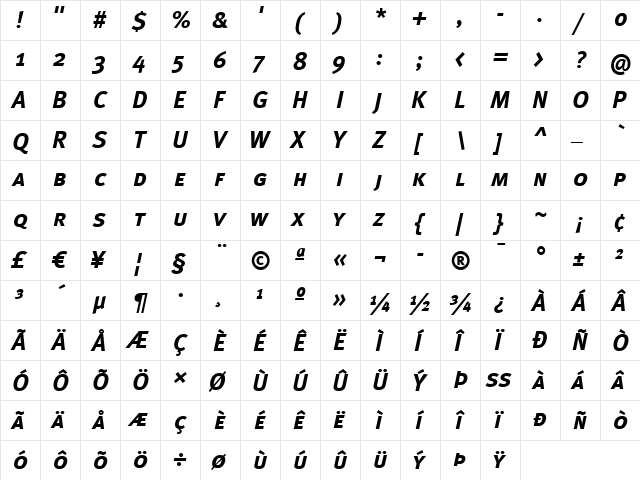
Meta Bold Italic Font Preview
Meta Bold Italic
Meta Bold Italic Font Details
| Foundry | Erik Spiekermann, published by Fontshop International for the FontFont library |
Design Context for Meta Typeface
Meta takes a measured approach to typography — its balanced proportions and neutral character make it a reliable workhorse for both digital and print work. Its italic angle brings a sense of urgency and motion to the letterforms. The heavy weight commands attention and anchors typographic hierarchies.
Pro Tip: Use Meta for emphasis, pull quotes, and subheadings where its slanted energy can add rhythm to the layout.